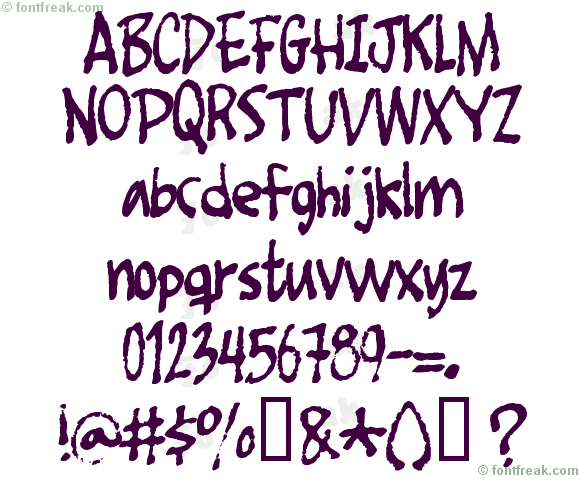
Foot Fight
Foot Fight is a distinctive display font designed by Jacob Fisher in 2003. This font falls into the decorative category, featuring a playful, hand-drawn aesthetic that adds a unique character to any project. The stroke weight varies, providing a dynamic visual appeal that captures attention, while the irregular spacing enhances its whimsical nature. The letters exhibit a slightly rough texture, reminiscent of brush strokes, which contributes to its energetic and informal vibe.
This font is particularly well-suited for a variety of creative applications. It's an excellent choice for designing vibrant movie posters, where its bold and energetic style can effectively convey excitement and action. Additionally, Foot Fight can be used in promotional materials for sports events or youth-oriented activities, making it ideal for flyers and banners that need to grab the audience's attention. Its playful nature also makes it suitable for children's books and playful branding projects. For those in the food industry, it can add a fun twist to restaurant menus, especially for casual dining or food trucks.
The target audience for the Foot Fight font includes graphic designers seeking unique typefaces for their projects, small business owners looking to create engaging branding, and content creators who want to inject personality into their visual content.